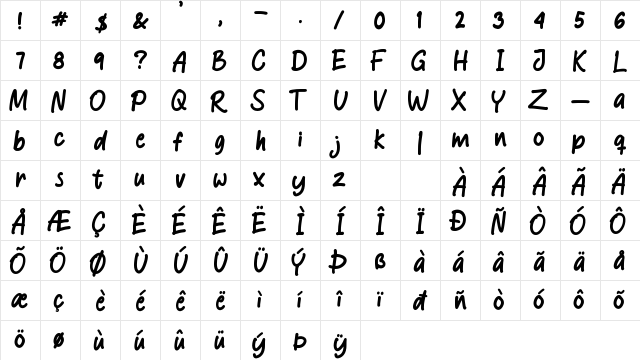
Jarbomhollow Regular
| Foundry | Kotak Kuning Studio |
| Designer | Kotak Kuning Studio |
Design Context for Jarbomhollow Typeface
Jarbomhollow is a composed and adaptable typeface that performs quietly and consistently across a wide range of design contexts.